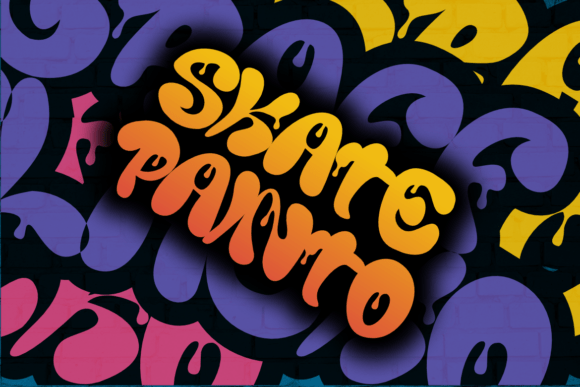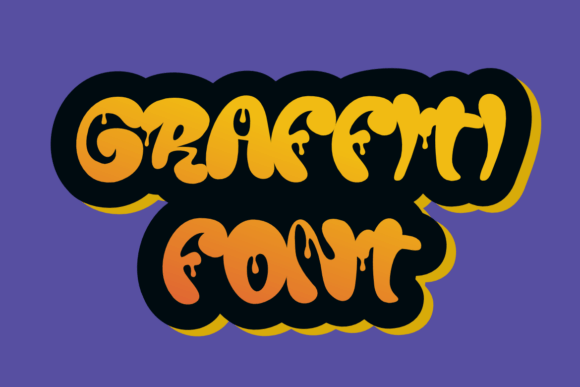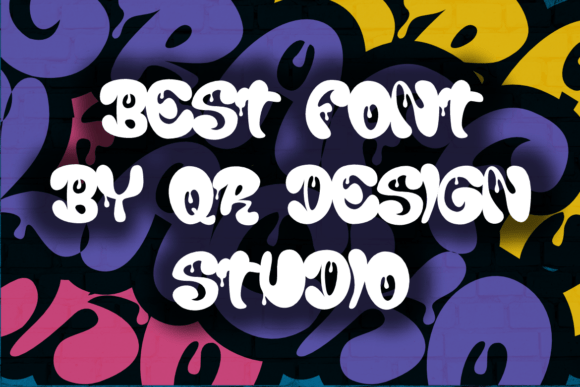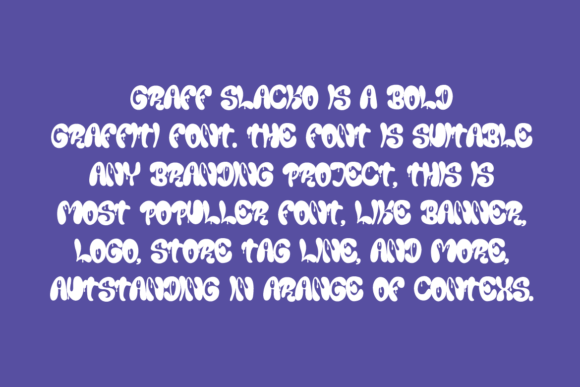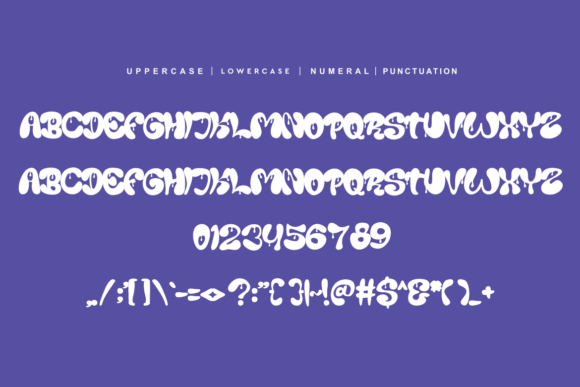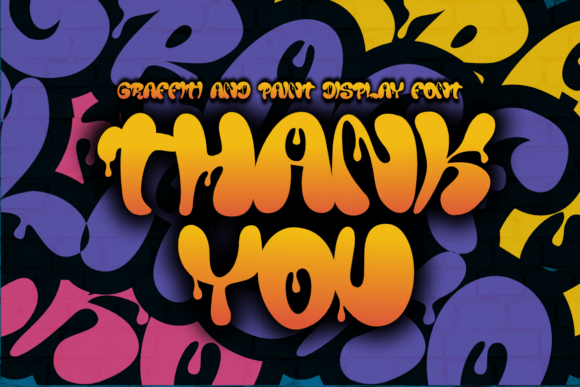
Unleash Your Creativity with Graff Slacko Font: The Ultimate Urban Typeface
Are you a designer, crafty enthusiast, or simply someone who loves to express themselves through art? Look no further than the Graff Slacko Font, a vibrant bubble graffiti font that’s sure to bring a dose of street-style attitude and playful rebellion to your projects. In this article, we’ll dive into the world of Graff Slacko, exploring its unique features, uses, and benefits.
What is Graff Slacko Font?
Graff Slacko is a bold, eye-catching font that embodies the spirit of urban art. Its rounded, drippy strokes and thick contours give it a distinctive, paint-splattered look that’s reminiscent of street graffiti. This font is perfect for designers and crafters who want to add a touch of edginess and playfulness to their work.
Key Features of Graff Slacko Font
- Rounded, drippy strokes: Graff Slacko’s unique strokes are characterized by rounded, drippy edges that give it a dynamic, hand-painted feel.
- Bold contours: The font’s thick contours make it stand out on both digital and print media, ensuring your message is loud and clear.
- High-energy curves: Graff Slacko’s curves are bursting with energy, adding a sense of movement and playfulness to your designs.
- Thick volume: The font’s bold, chunky appearance makes it perfect for headlines, titles, and other attention-grabbing applications.
Uses for Graff Slacko Font
Graff Slacko is an incredibly versatile font that can be used in a wide range of applications, including:
- Urban art: Graff Slacko is perfect for street artists, graffiti enthusiasts, and anyone who wants to create bold, eye-catching murals and posters.
- Skate brands: The font’s edgy, rebellious vibe makes it a natural fit for skateboard brands, action sports teams, and extreme sports enthusiasts.
- Hip-hop event flyers: Graff Slacko’s high-energy curves and bold contours make it perfect for promoting hip-hop concerts, festivals, and other music events.
- Edgy youth merchandise: The font’s playful, rebellious attitude makes it a great choice for designing bold, eye-catching apparel and accessories for young people.
Benefits of Using Graff Slacko Font
So why choose Graff Slacko Font for your next project? Here are just a few benefits:
- Adds a touch of urban attitude: Graff Slacko brings a dose of street-style attitude and playfulness to your designs, making them stand out from the crowd.
- Perfect for bold statements: The font’s thick contours and high-energy curves make it perfect for creating bold, attention-grabbing headlines and titles.
- Versatile and adaptable: Graff Slacko can be used in a wide range of applications, from urban art to hip-hop event flyers and edgy youth merchandise.
Tips for Using Graff Slacko Font
Here are a few tips for getting the most out of Graff Slacko Font:
- Use it boldly: Graff Slacko is a bold, attention-grabbing font, so don’t be afraid to use it in large sizes and bold weights.
- Experiment with colors: The font’s drippy, paint-splattered look lends itself perfectly to bright, bold colors and gradient effects.
- Pair it with contrasting fonts: Graff Slacko’s bold, playful attitude makes it a great choice for pairing with simpler, more elegant fonts to create visual contrast.
In conclusion, Graff Slacko Font is a vibrant, energetic typeface that’s perfect for designers, crafters, and artists who want to add a touch of urban attitude and playfulness to their work. With its rounded, drippy strokes, bold contours, and high-energy curves, this paint display typeface is sure to make a statement on both digital and print media. So why not give Graff Slacko a try and see how it can elevate your designs to the next level?